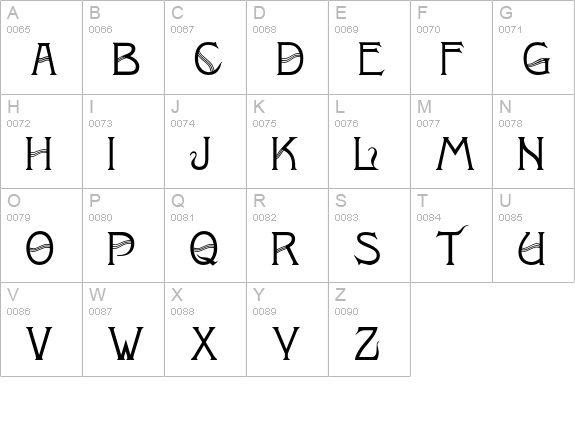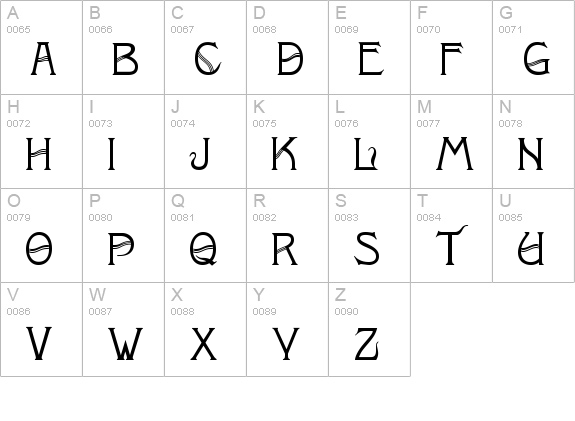
Uptown Font Details
Uptown font is a modern and stylish typeface that exudes sophistication and elegance. Its clean lines and sharp edges give it a sleek and polished look, making it perfect for a wide range of design projects. From logos and headings to posters and invitations, Uptown font adds a touch of class to any design. What sets Uptown font apart is not just its stunning visual appeal, but also the fact that it is available for free. Yes, you read that right! Uptown font can be freely downloaded from FontsMarket.com, allowing you to enhance your designs without breaking the bank. Whether you are a professional designer or a casual hobbyist, Uptown font offers endless possibilities. Its versatility allows it to be used in various contexts, from branding and advertising to web design and social media graphics. Its legibility and readability make it suitable for both print and digital applications. The Uptown font family includes a wide range of weights and styles, giving you the flexibility to create eye-catching designs that truly stand out. From the bold and impactful Uptown Black to the elegant and refined Uptown Light, there is a style for every design need. So why wait? Upgrade your design game today with Uptown font. Download it for free at FontsMarket.com and experience the seamless blend of style and affordability. Unleash your creativity and let Uptown font elevate your designs to new heights.